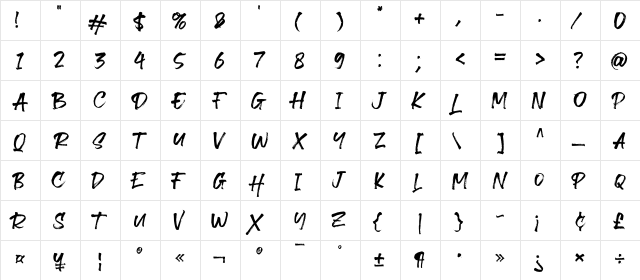
Revnosa Regular
Design Context for Revnosa Typeface
Revnosa is a composed and adaptable typeface that performs quietly and consistently across a wide range of design contexts.